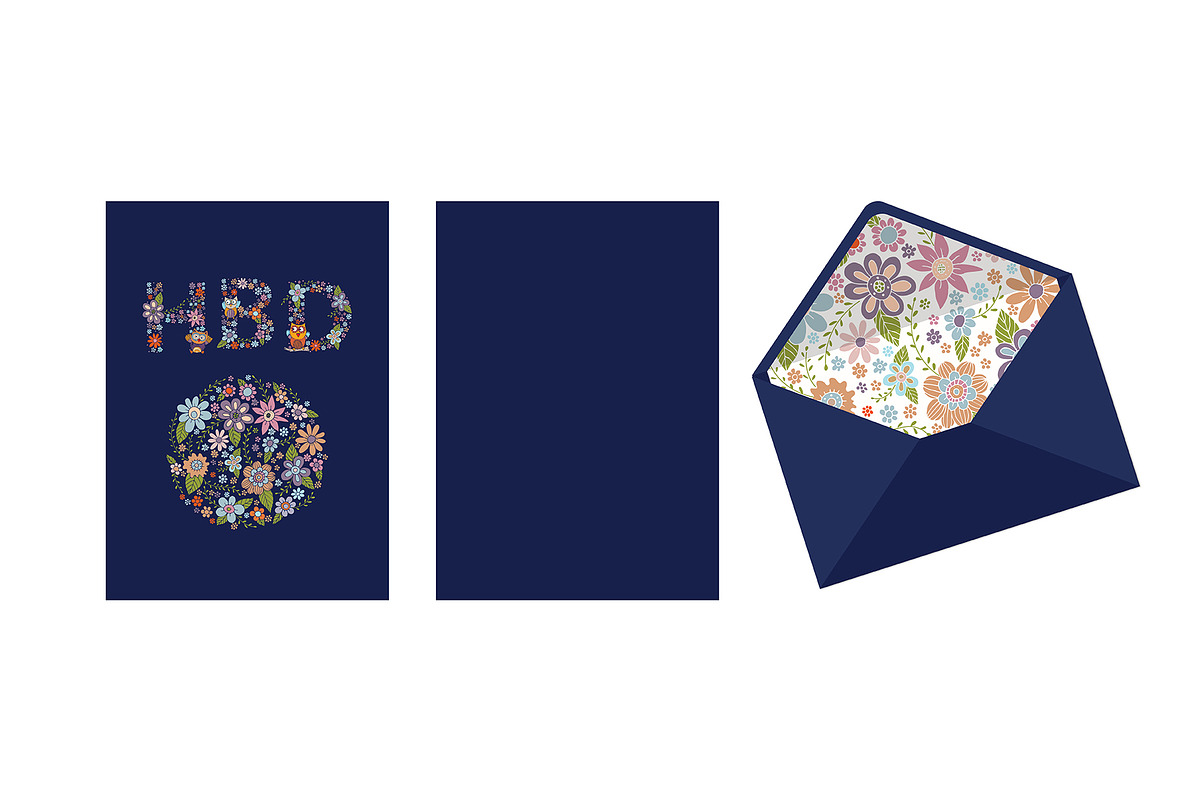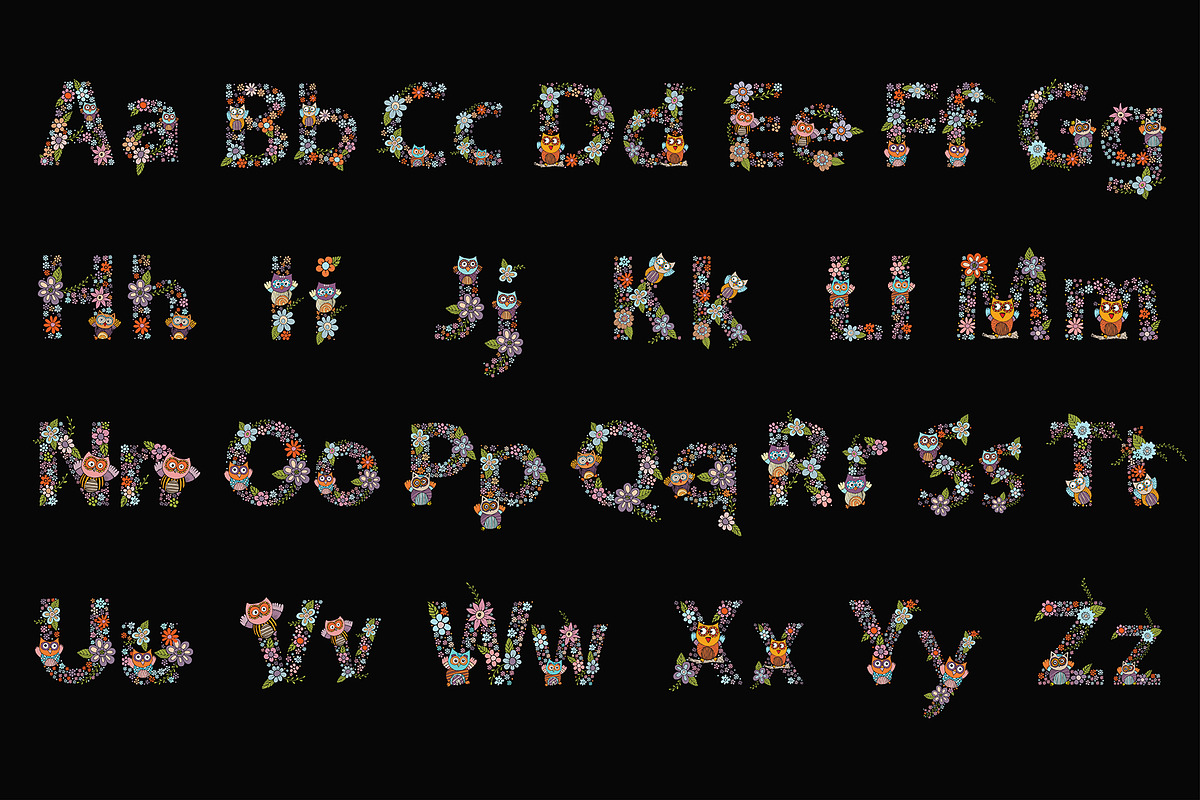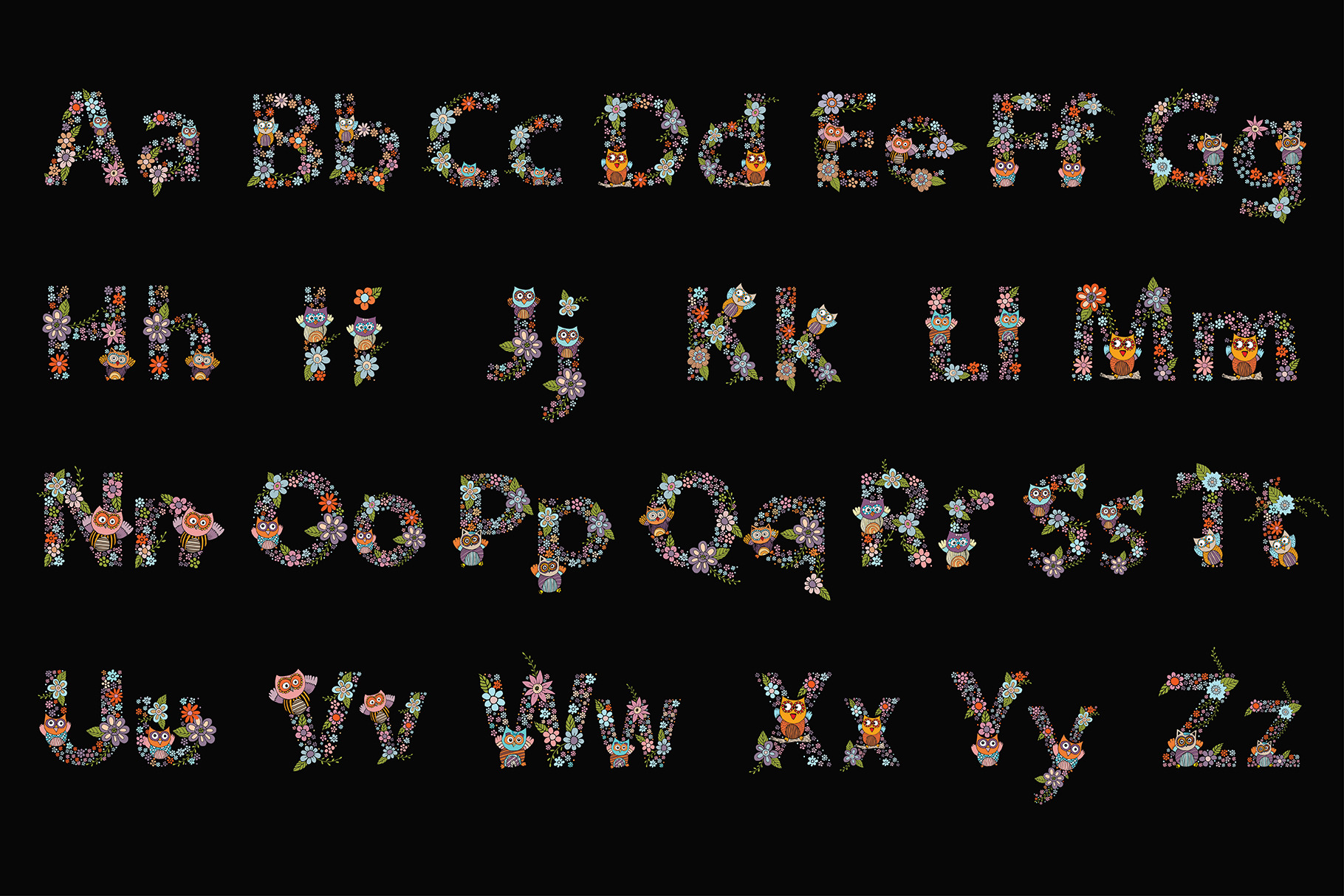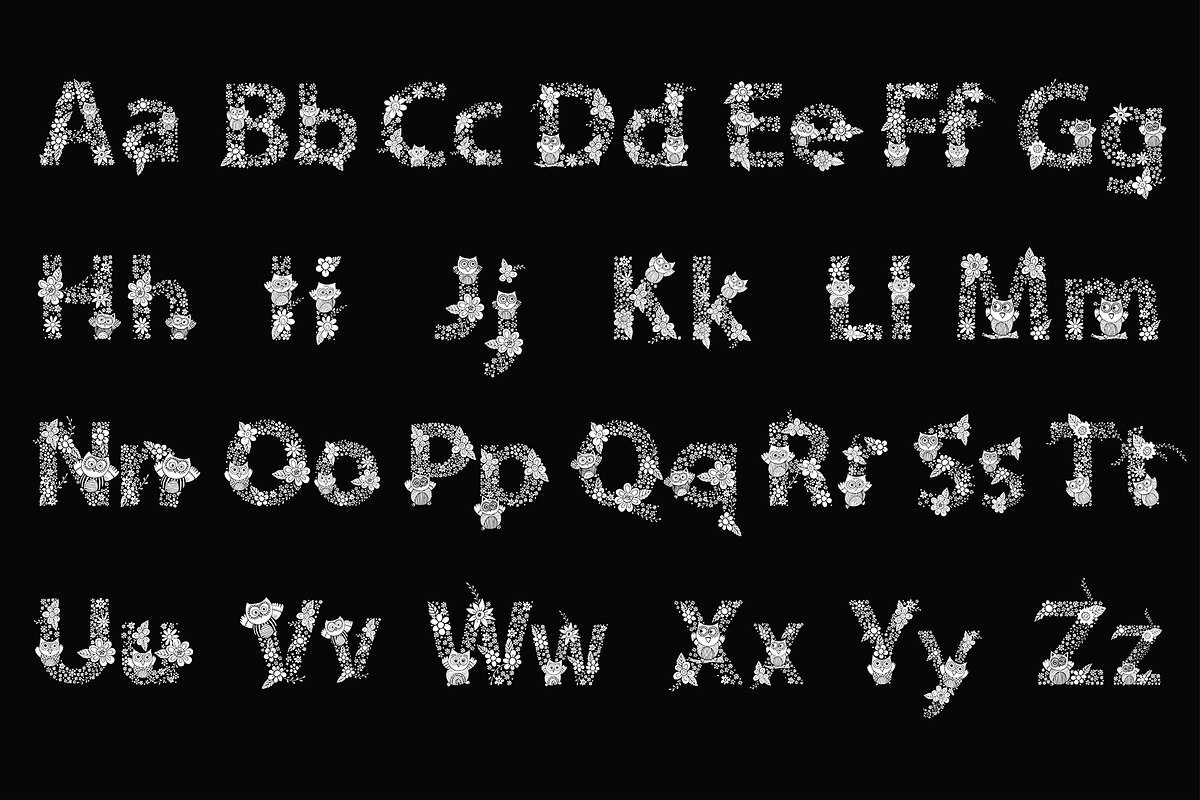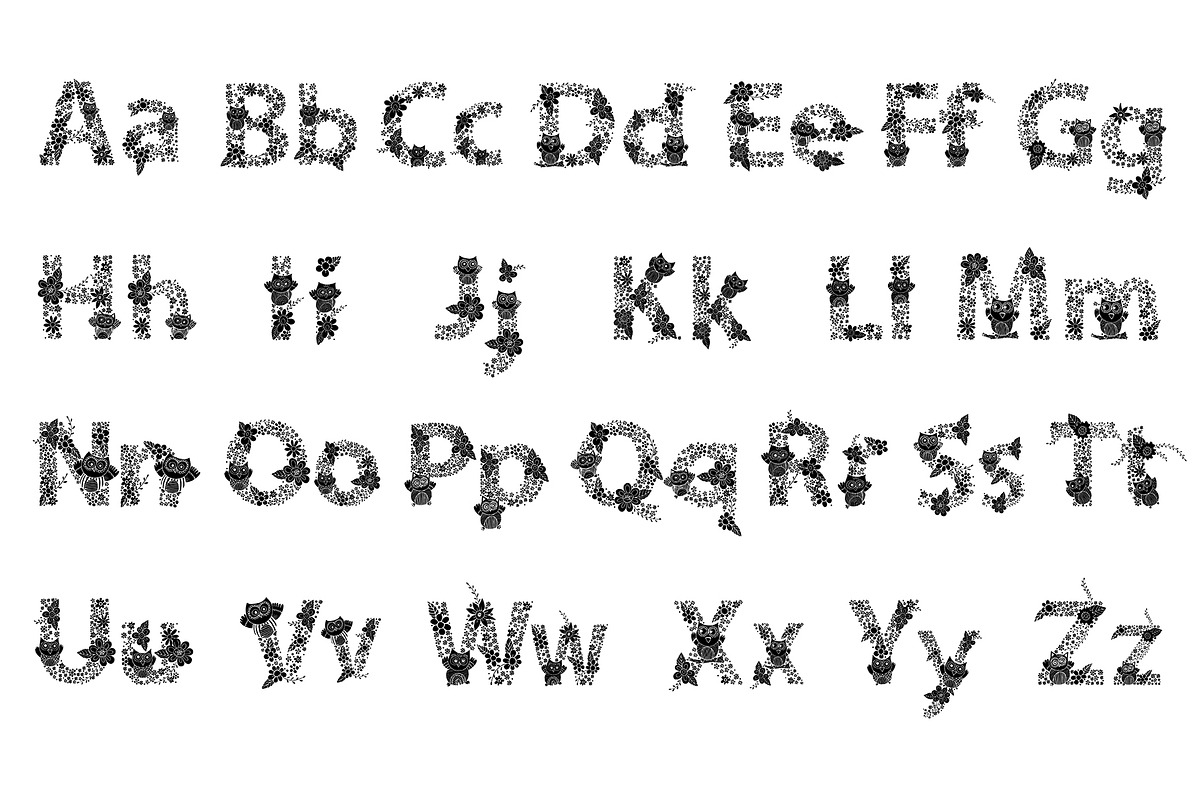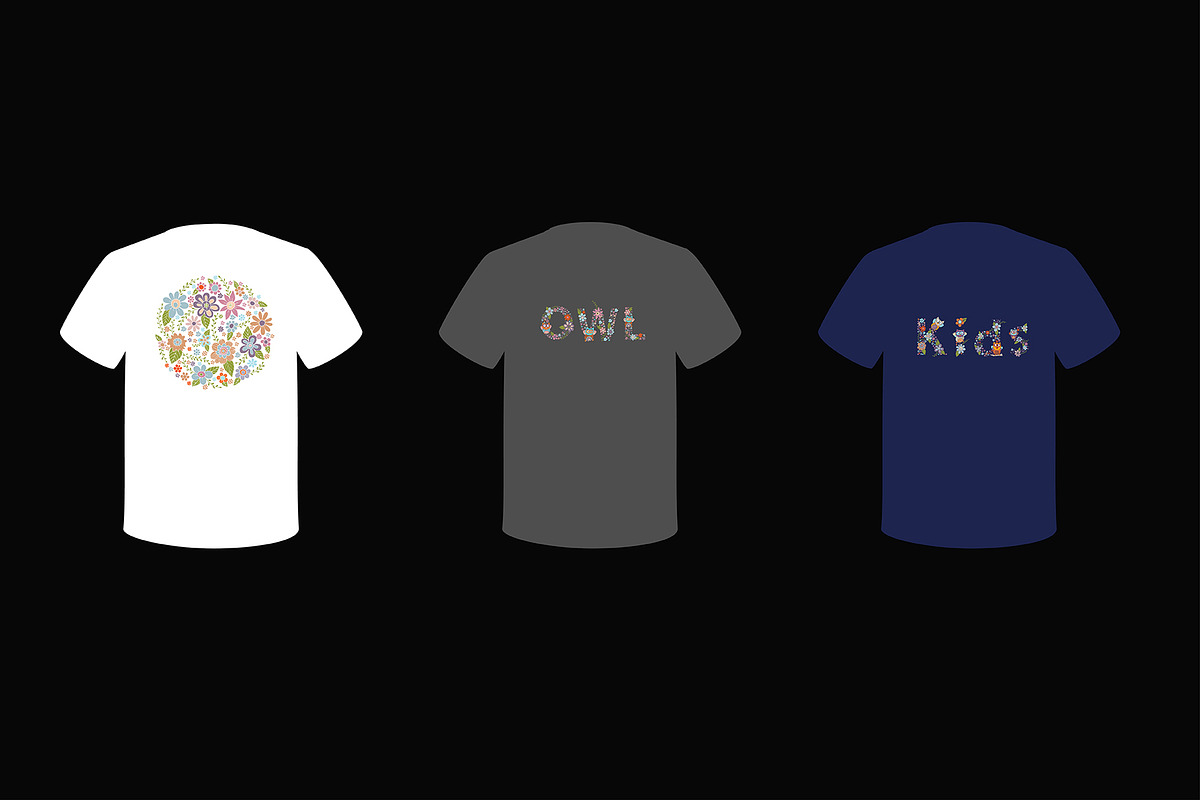
Owl Font Design with Flower Vector.
A-Z Font Design Owl with Flower Doodle Vector. Eps 10, Jpg HBD Card Invitation Template. T-Shirt Print Design Template.